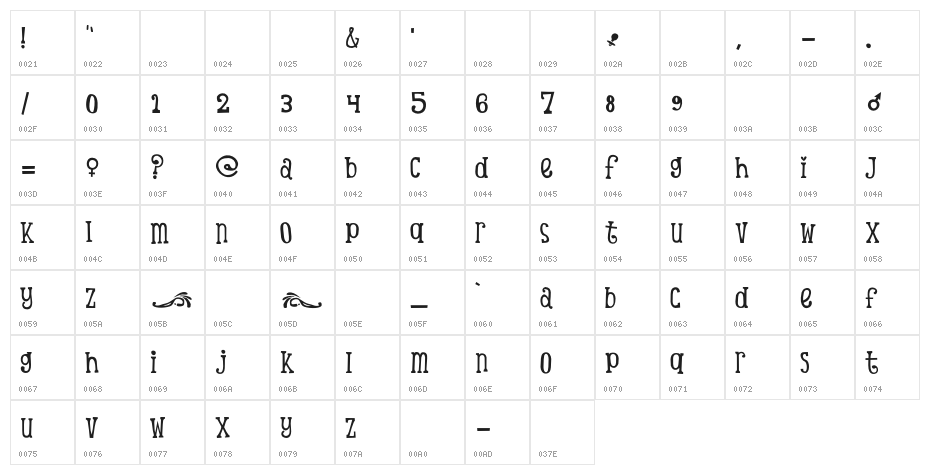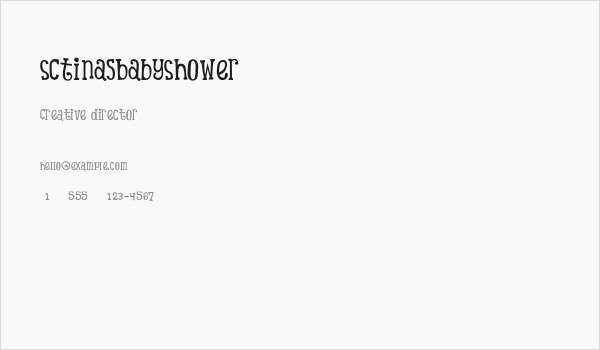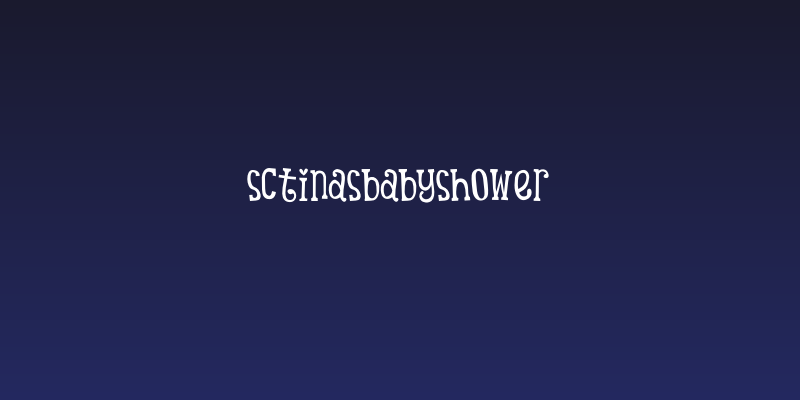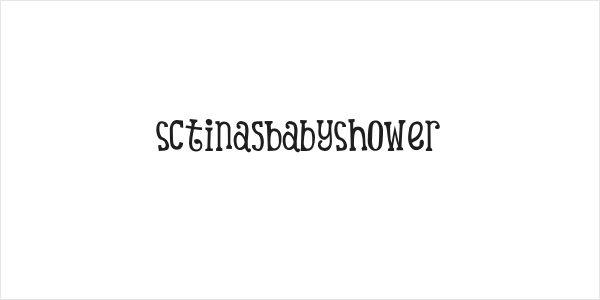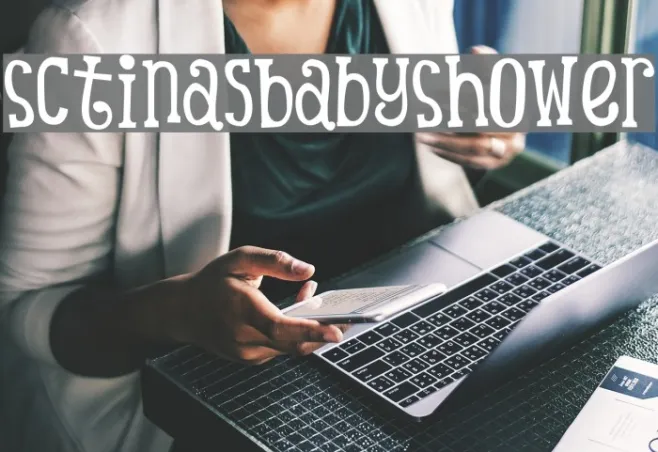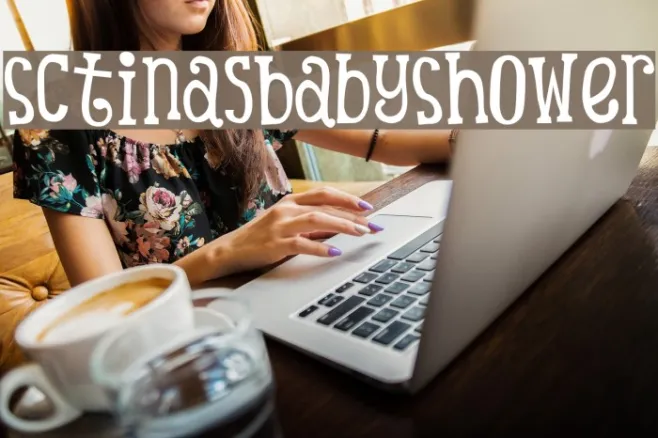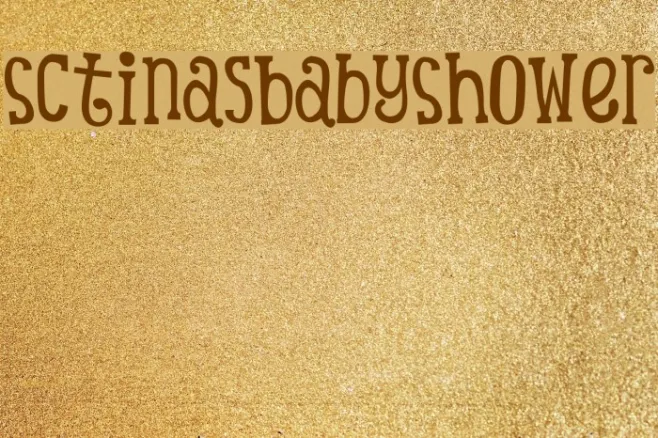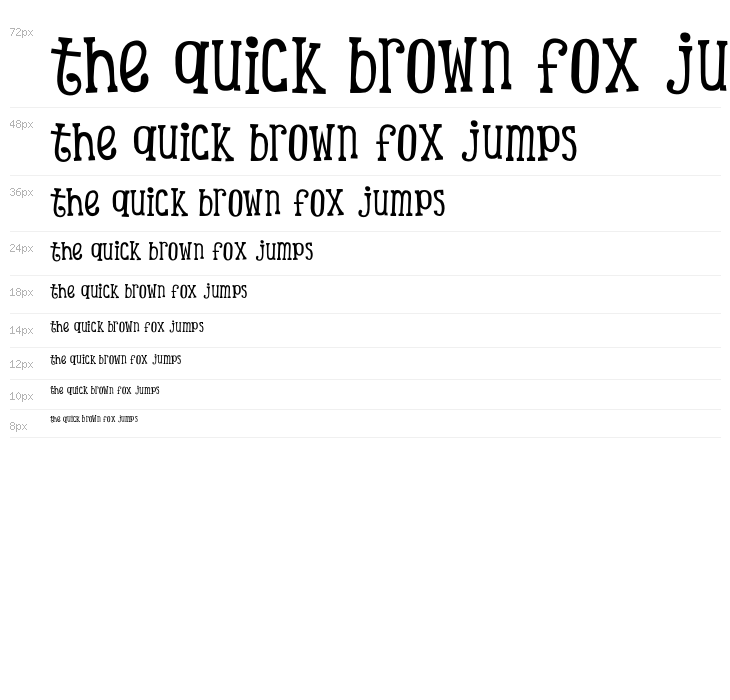
SCTinasBabyShower Font
SCTinasBabyShower Description
This font features a playful and whimsical design, characterized by its unique and quirky letterforms. Each character has a distinct personality, with varying stroke widths and decorative elements that add a touch of fun and creativity. The uppercase letters are bold and prominent, while the lowercase letters maintain a consistent style with slight variations in height and curve. The numbers are equally playful, with rounded edges and a slightly exaggerated form. Special characters are designed with the same whimsical flair, making this font perfect for projects that require a lighthearted and imaginative touch.
| Proposed Projects | Ideal for children's books, party invitations, playful branding, and creative posters. |